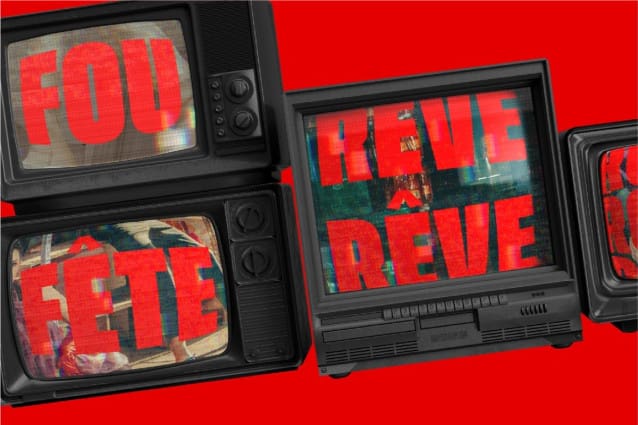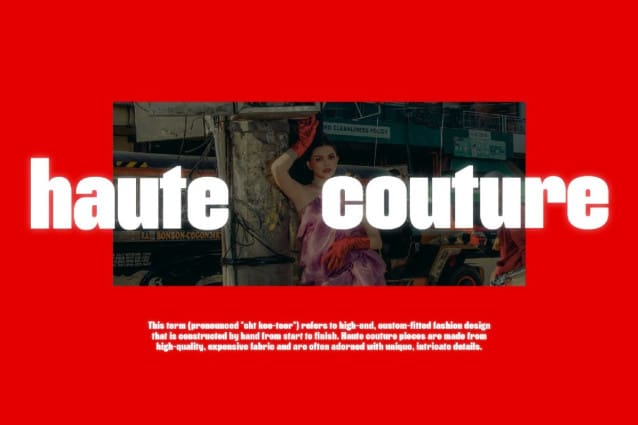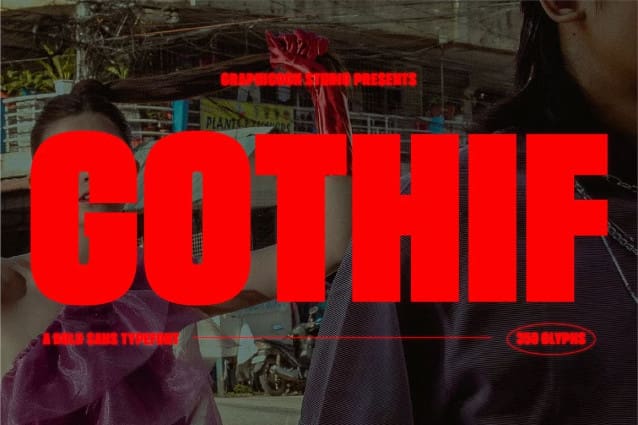
Gothif Font
Gothif Font! It’s a bold sans-serif font that gives a gothic style. It is ideal for headlines, packaging, posters, and any design that requires bold font
Gothif is perfect for headlines, logotypes, magazines, packaging, quotes, movies, games, cover albums, book covers, and flyers, it’s a perfect solution for creating eye-catching designs that stand out in any context.